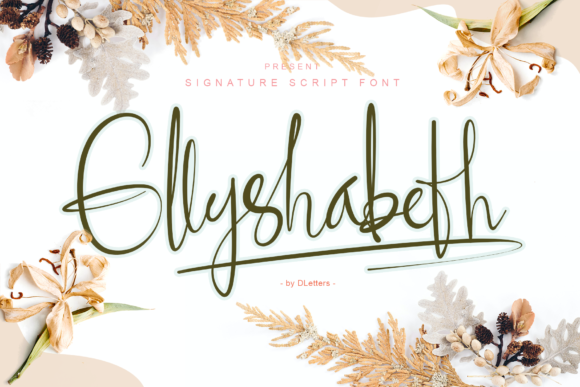
The Perfect Touch of Elegance: Unlocking the Power of Ellyshabeth Font
Have you ever sat at your desk, staring at a blank sheet of paper, trying to put into words the emotions of a special moment? Maybe it’s a wedding invitation, a heartfelt thank you note, or a message to a loved one. Whatever it is, the right font can make all the difference. For designers, the search for the perfect font is a constant quest, and the latest addition to the world of typography is one that’s sure to capture hearts: Ellyshabeth Font.
This beautiful font is designed to evoke a sense of elegance and flow, with smooth lines, gorgeous glyphs, and stunning alternates that add a touch of sophistication to any design. Whether you’re creating wedding invitations, business cards, or greeting cards, Ellyshabeth Font is the perfect choice for adding a handwritten touch that’s sure to leave a lasting impression.
- Font Family: Ellyshabeth
- Unique Characteristics: Ellyshabeth is a modern script font with elegant and flowing connections, suitable for various design applications such as logos, invitations, and editorial content.
Designer Review: Ellyshabeth Font
Overall, I found the Ellyshabeth Font to be a beautiful, elegant script font that can add a touch of sophistication to any design project. ✨ One of the things I appreciate about this font is its high level of customization options, allowing designers to fine-tune the look and feel to suit their specific needs. ✨ The font’s connections between letters are smooth and seamless, making it ideal for use in longer blocks of text.
However, there are a few limitations to consider. ⚠️ One of the main issues I encountered was with the font’s spacing and kerning. At times, the letters can appear a bit too tight or loose, which can affect readability. ⚠️ Additionally, the font may not be the best choice for use in very small sizes, as the details can become difficult to discern.
Here are some specific things to keep in mind when using the Ellyshabeth Font:
- Be mindful of spacing and kerning to ensure optimal readability.
- Choose font sizes wisely, as very small sizes can become difficult to read.
- Take advantage of customization options to tailor the font to your specific design needs.
Overall, I would recommend the Ellyshabeth Font to designers looking for a high-end, elegant script font. While it may have some limitations, its strengths far outweigh its weaknesses, making it a valuable addition to any designer’s toolkit.
The Ellyshabeth font is ideal for:
- Certificates and diplomas
- Choose a light color for the background to allow the font to stand out.
- Pair the font with floral illustrations or watercolor elements to add a touch of whimsy.
- Use a combination of uppercase and lowercase letters to create visual interest.
- Use gold or silver foil stamping to add a touch of luxury and sophistication.
- Pair the font with a delicate script font for a romantic look.
- Use a bold, geometric font to create contrast and add visual interest.
- Choose a high-quality paper with a subtle texture to add depth and interest.
- Pair the font with a simple, yet elegant design element, such as a small floral pattern or a delicate border.
- Use a combination of monochromatic colors to create a cohesive look.
- Use a
What is the font style and classification of Ellyshabeth?
Ellyshabeth is a modern calligraphy font with a elegant and sophisticated feel. It belongs to the script font category, characterized by its flowing connections and decorative flair.
Project 2: Elegant Stationery Set
Create an elegant stationery set that features the Ellyshabeth Font as the primary font. Use the font’s refined style to create a sophisticated look that will make your stationery stand out.